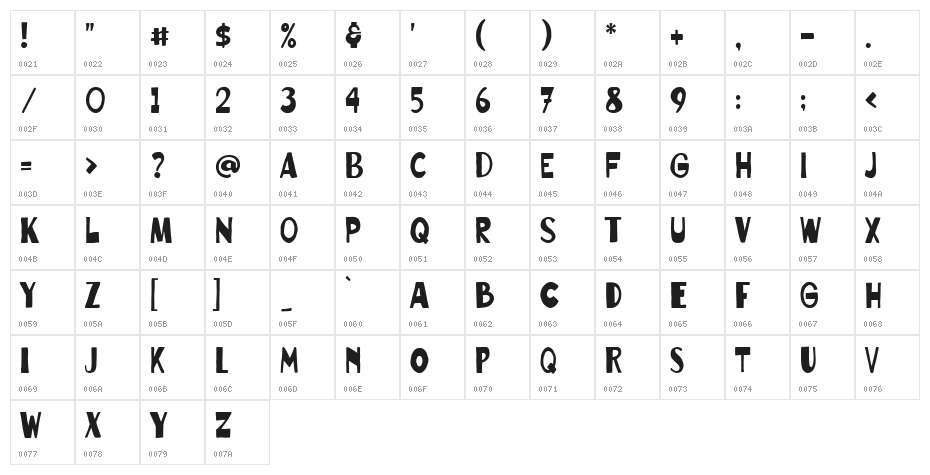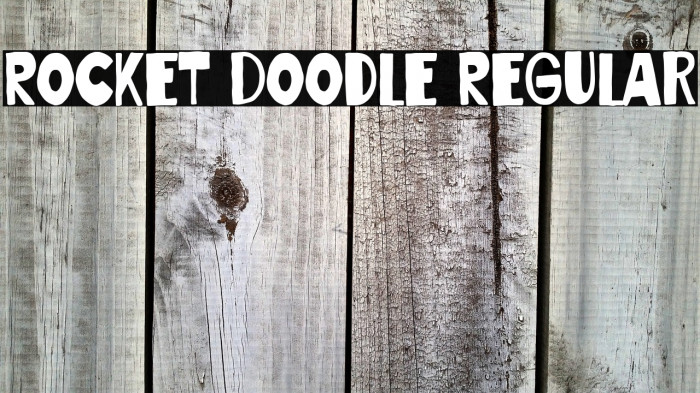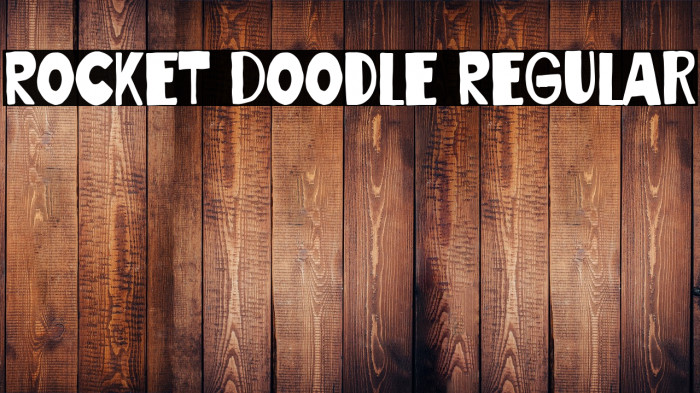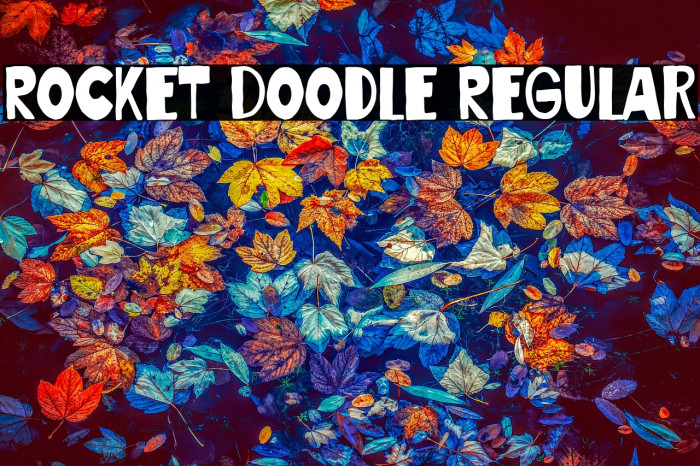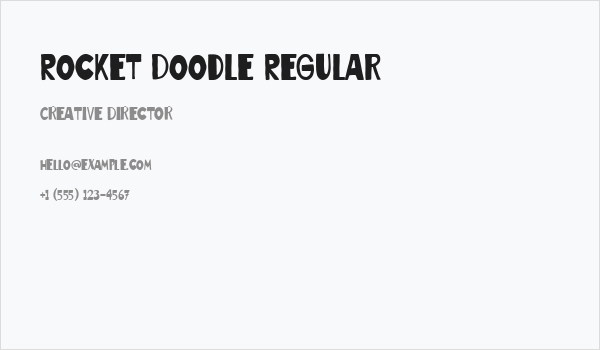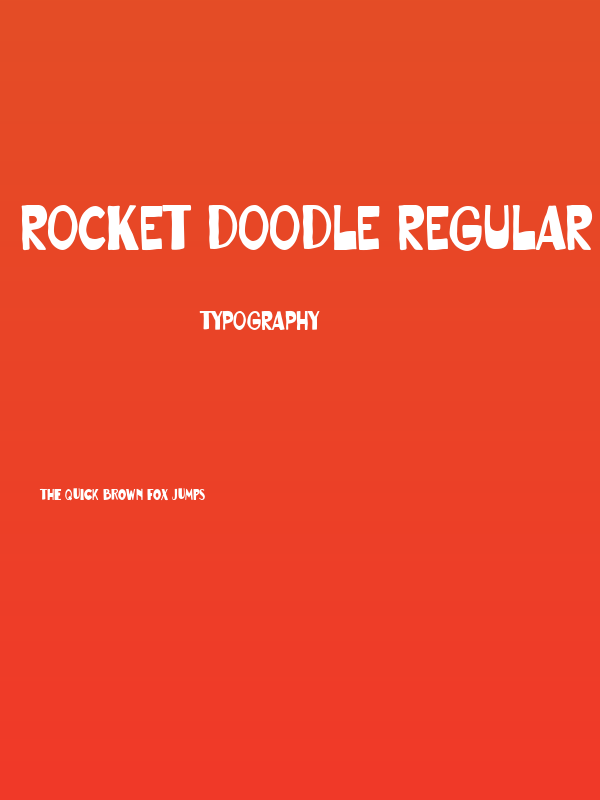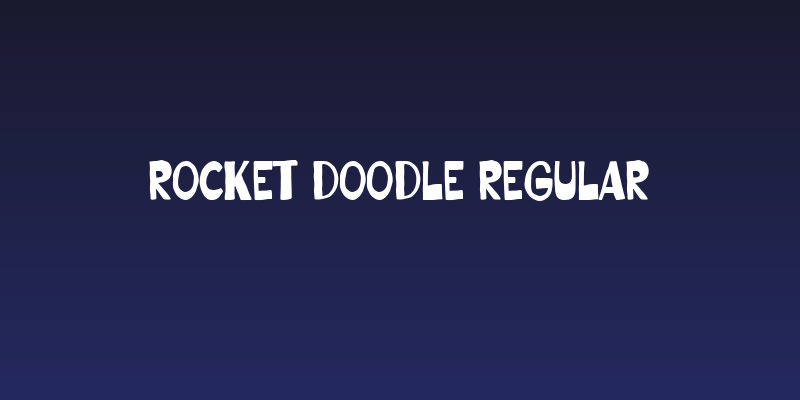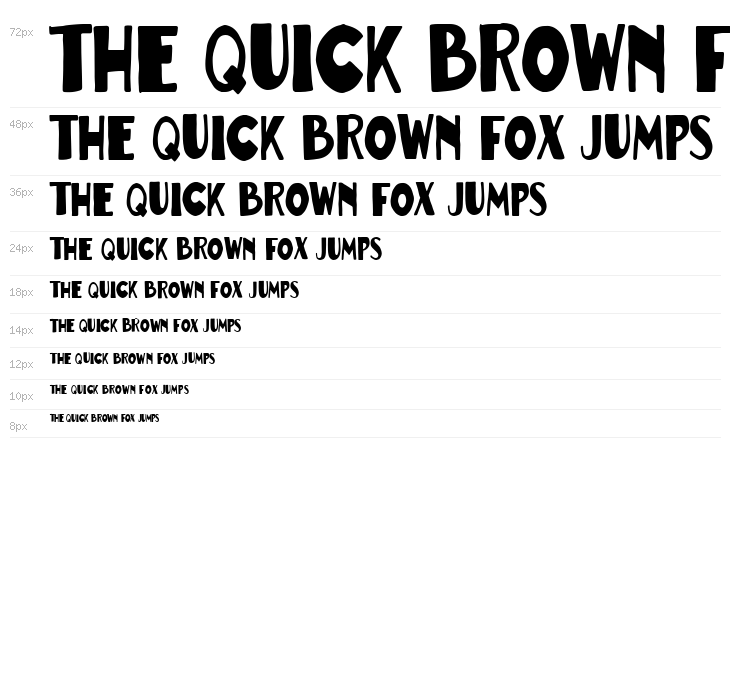
Rocket Doodle Regular Font
Rocket Doodle Regular Description
A playful, bold font with irregular, hand-drawn characteristics and a whimsical style.
| Proposed Projects | Children's books, playful branding, casual posters. |